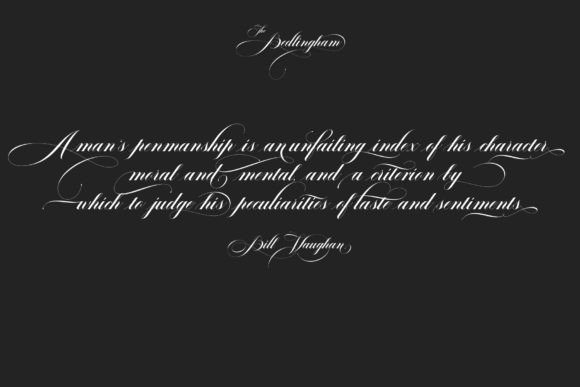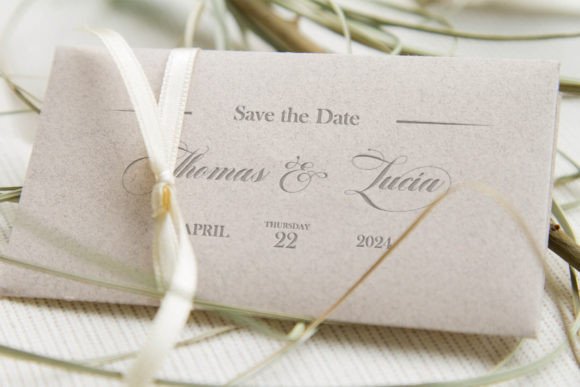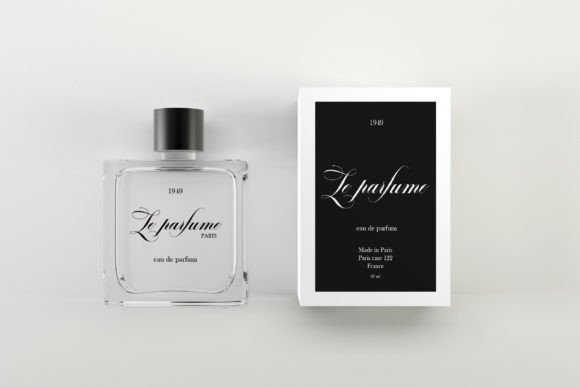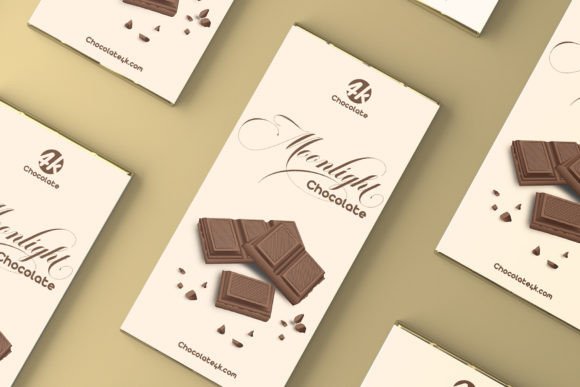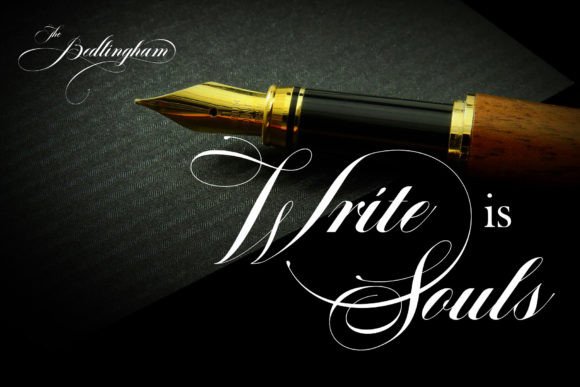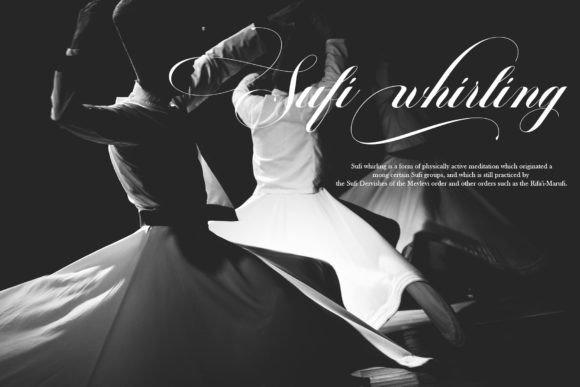
Discover the Elegance of Bedlingham Font: A Comprehensive Guide
Are you a designer or crafter looking for a font that exudes classic elegance and sophistication? Look no further than the Bedlingham Font. This stunning font features 10 thickness variations, a wide range of ligatures, and stylistic sets that will elevate your design projects to the next level. In this article, we’ll dive into the world of Bedlingham Font and explore its features, benefits, and uses.
What is Bedlingham Font?
Bedlingham Font is a beautifully crafted font that boasts a classic, elegant style. With 10 thickness variations, this font offers a range of options for designers and crafters to choose from, making it perfect for a variety of projects, from luxury branding to wedding stationery. The font’s versatility and flexibility make it an excellent choice for those looking to add a touch of sophistication to their designs.
Key Features of Bedlingham Font
So, what sets Bedlingham Font apart from other fonts? Here are some of its key features:
- 10 Thickness Variations: Bedlingham Font offers 10 different thickness variations, allowing designers to choose the perfect weight for their project.
- Ligatures and Stylistic Sets: This font features a wide range of ligatures and stylistic sets, which can be easily accessed using a combination of letters and numbers.
- Opentype Feature: Bedlingham Font is equipped with an opentype feature that includes contextual alternates, which are replaced automatically.
- Contextual Alternates: The font’s contextual alternates feature ensures that the text flows smoothly and naturally, making it perfect for body text and headlines.
Benefits of Using Bedlingham Font
So, why should designers and crafters choose Bedlingham Font for their projects? Here are some benefits of using this stunning font:
- Elegance and Sophistication: Bedlingham Font adds a touch of elegance and sophistication to any design project.
- Versatility: With 10 thickness variations and a range of ligatures and stylistic sets, this font can be used for a wide range of projects.
- Easy to Use: The font’s opentype feature and contextual alternates make it easy to use and customize.
- Time-Saving: With Bedlingham Font, designers can save time and effort by easily accessing the stylistic sets and ligatures they need.
Uses of Bedlingham Font
Bedlingham Font is perfect for a variety of design projects, including:
- Luxury Branding: The font’s elegant and sophisticated style makes it perfect for luxury brands looking to create a high-end image.
- Wedding Stationery: Bedlingham Font is a popular choice for wedding stationery, including invitations, menus, and programs.
- Packaging Design: The font’s versatility and flexibility make it an excellent choice for packaging design projects.
- Advertising and Marketing: Bedlingham Font can be used to create eye-catching headlines and body text for advertising and marketing campaigns.
In conclusion, Bedlingham Font is a stunning font that offers a range of features, benefits, and uses for designers and crafters. With its elegant and sophisticated style, 10 thickness variations, and wide range of ligatures and stylistic sets, this font is perfect for a variety of design projects. Whether you’re looking to create a luxury brand image, design wedding stationery, or craft eye-catching advertising and marketing materials, Bedlingham Font is an excellent choice.